Great graphic design is powered by great font selection. But picking great fonts is a challenge most people. Luckily, Canva has made adding great fonts to your designs much easier. In this tutorial, our team of design experts will cover the best Irish fonts in Canva.
What Are Irish Fonts?
Irish fonts, also known as Celtic fonts, are characterized by their unique and intricate design elements that are inspired by traditional Irish and Celtic art. Some common characteristics of Irish fonts include:
- Knotwork: Many Irish fonts feature intricate knotwork designs that are reminiscent of traditional Celtic art.
- Curves and swirls: Irish fonts often incorporate curves, swirls, and loops into their design, creating a sense of movement and fluidity.
- Diagonal strokes: Some Irish fonts feature diagonal strokes, which add visual interest and depth to the design.
- Decorative elements: Irish fonts often feature decorative elements such as dots, lines, and flourishes that enhance the overall appearance of the font.
- Bold and strong appearance: Irish fonts often have a bold and strong appearance, which makes them ideal for designs that require a sense of power and authority.
- Unique and distinctive: Irish fonts have a unique and distinctive appearance that sets them apart from other fonts, making them ideal for designs that require a touch of individuality and personality.
Best Canva Irish Fonts
1. Saint George
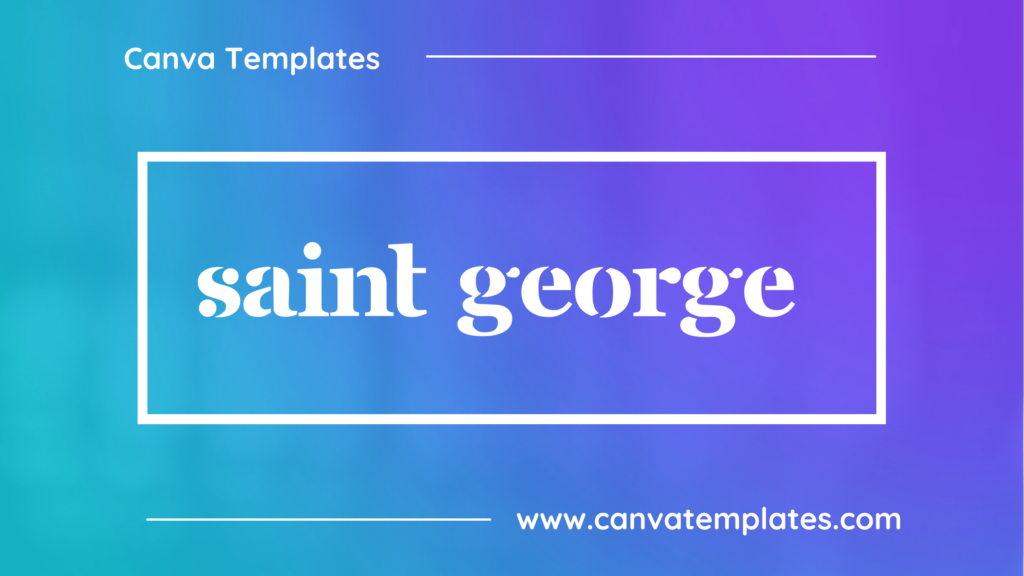
Saint George is a decorative font with medieval-inspired letterforms that give it a historical and regal appearance. This font is suitable for projects that require an old-world, stately feel, such as certificates, heraldry, or signage.
2. Celandine Outline
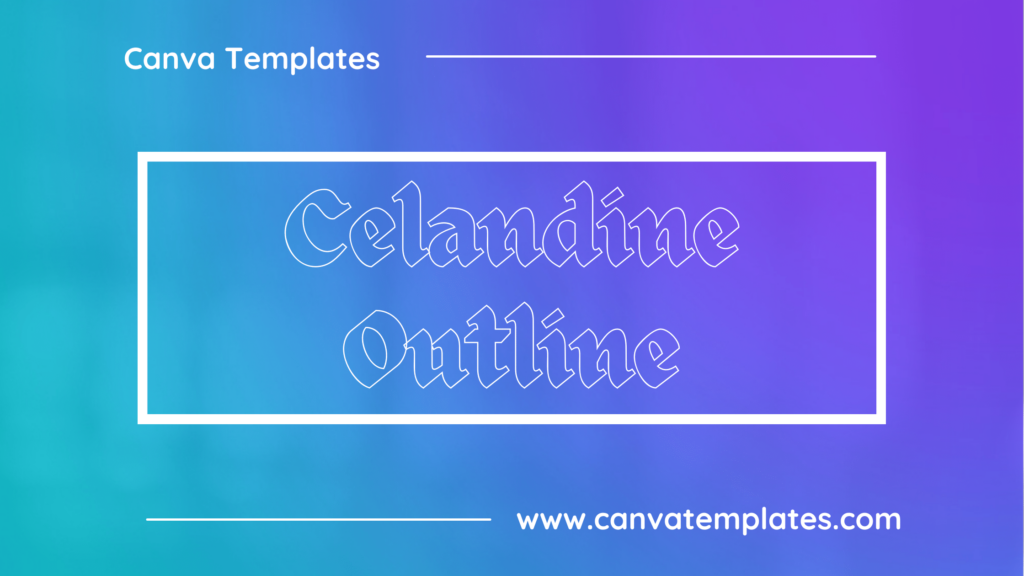
Celandine Outline is a delicate and elegant font featuring outlined letterforms with a touch of floral embellishment. This font is perfect for projects that need a sophisticated and graceful aesthetic, such as wedding invitations, labels, or logos.
3. Luckiest Guy
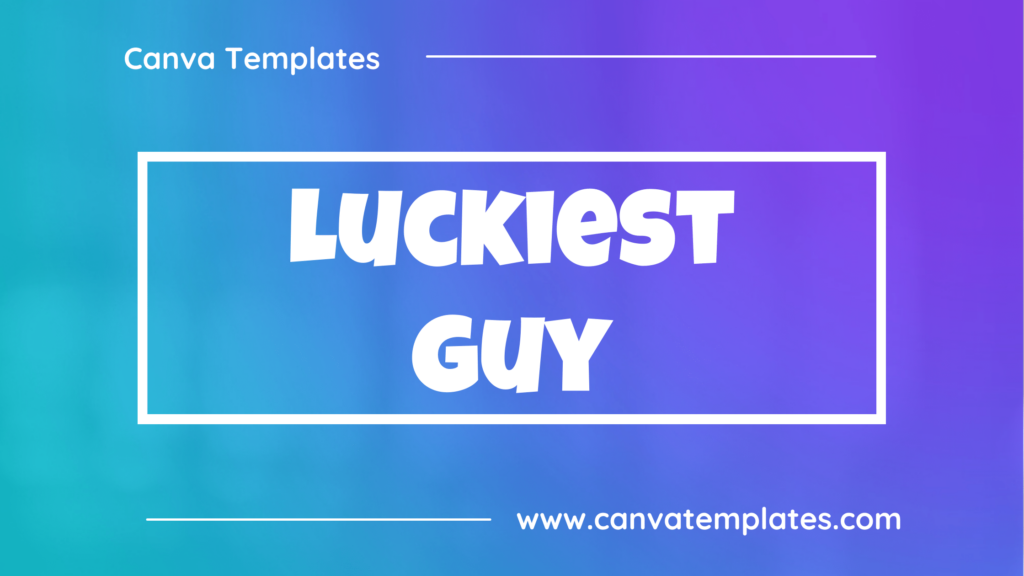
Luckiest Guy is a playful, comic-style font characterized by its bold and rounded letterforms. Its fun and approachable design make it a great choice for projects that need an energetic and lighthearted tone, such as logos, posters, or children’s materials.
4. Engravers Old English
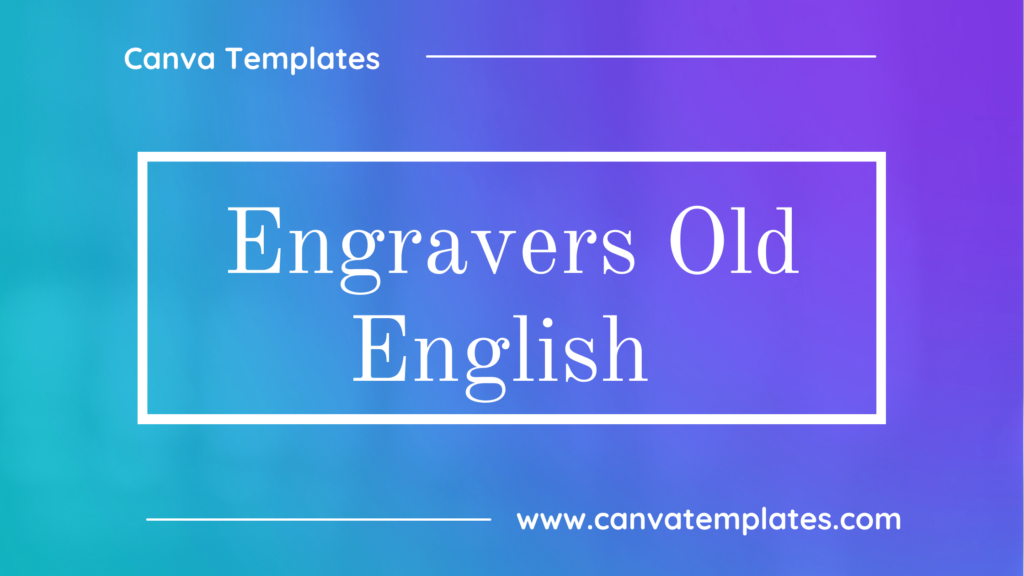
Engravers Old English is a classic, blackletter font that features ornate and intricate letterforms reminiscent of Gothic calligraphy. This font is ideal for projects that require a historical, regal, or medieval aesthetic, such as certificates, signage, or book covers.
5. IM Fell English SC
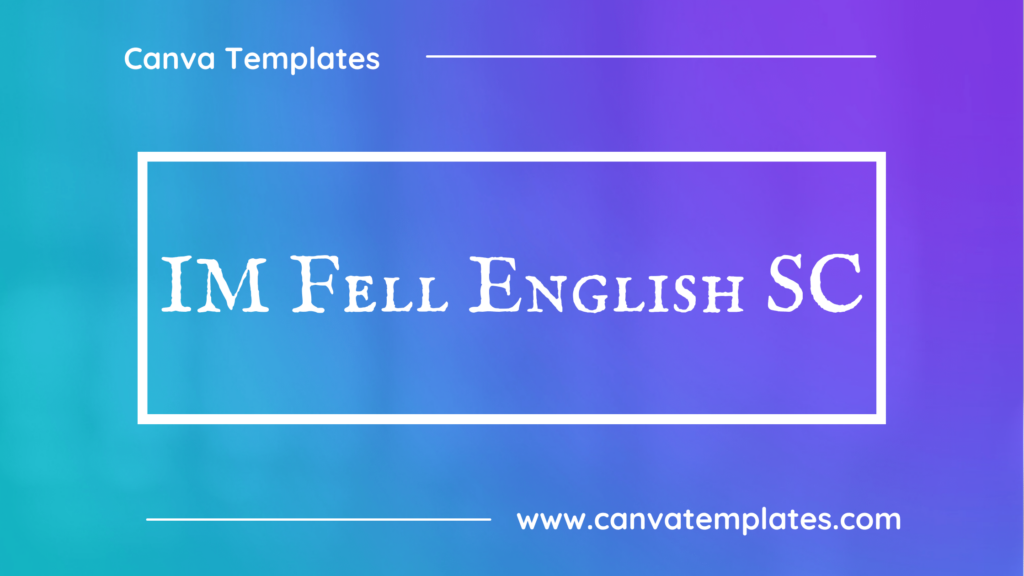
IM Fell English SC is a serif font inspired by the typesetting used in the works of English typographer and publisher John Fell. Its distinctive, slightly irregular letterforms evoke a sense of historical charm and make it an excellent choice for projects that require a classic, literary feel, such as book covers, historical documents, or academic publications.
6. Glassure
Glassure is a decorative display font with a unique design that resembles the texture of glass. The letters are made up of a series of small, interlocking shapes that create a mosaic-like effect. The font has a futuristic and elegant feel, making it ideal for use in designs that require a modern and sophisticated look.
7. Yatra One
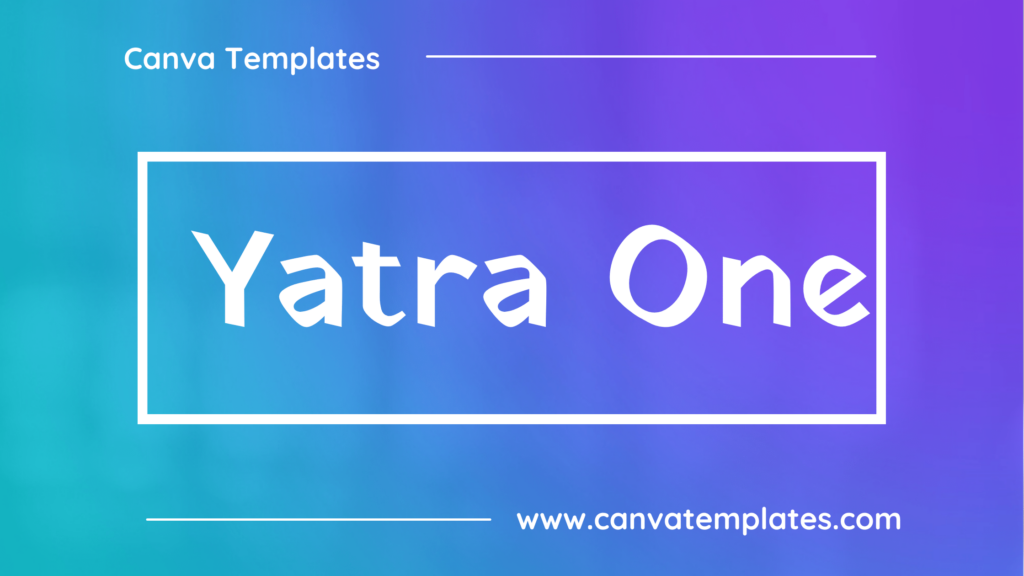
Yatra One is a decorative font with a unique, hand-drawn design that features bold and expressive letterforms. Its flowing and artistic appearance makes it an excellent choice for projects that require a distinctive and creative touch, such as posters, invitations, or branding for an artistic brand. Yatra One’s unique style adds an element of creativity and personality to any design project.
8. St Petrovica
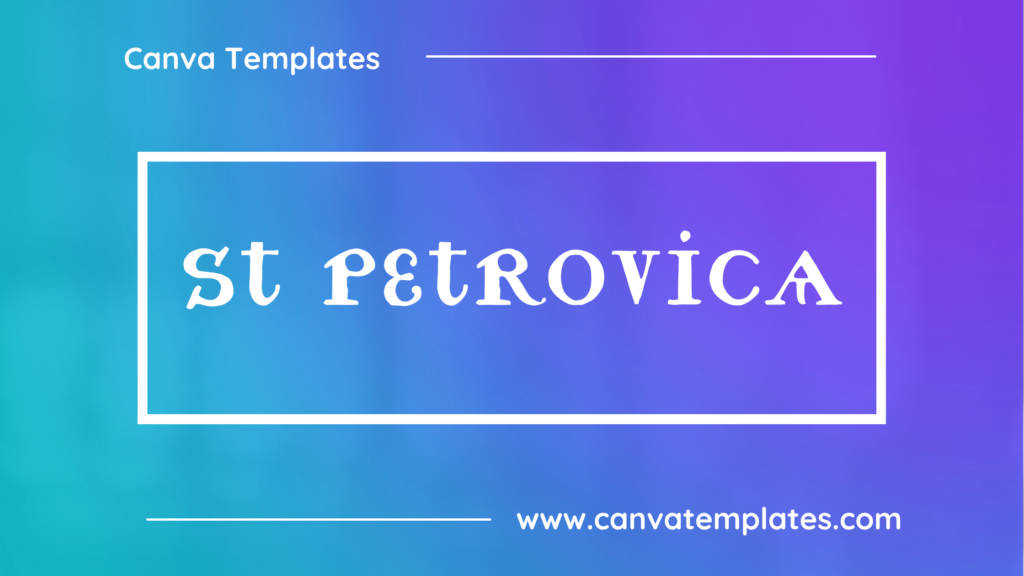
St Petrovica is a decorative font inspired by medieval calligraphy and illuminated manuscripts. Its ornate and stylized letterforms evoke a sense of tradition and craftsmanship, making it an excellent choice for projects that require a unique and artistic touch. St Petrovica is well-suited for use in book covers, branding for historical or cultural institutions, or any design project that aims to convey a sense of history and elegance.
9. Drukaatie Burti Bold
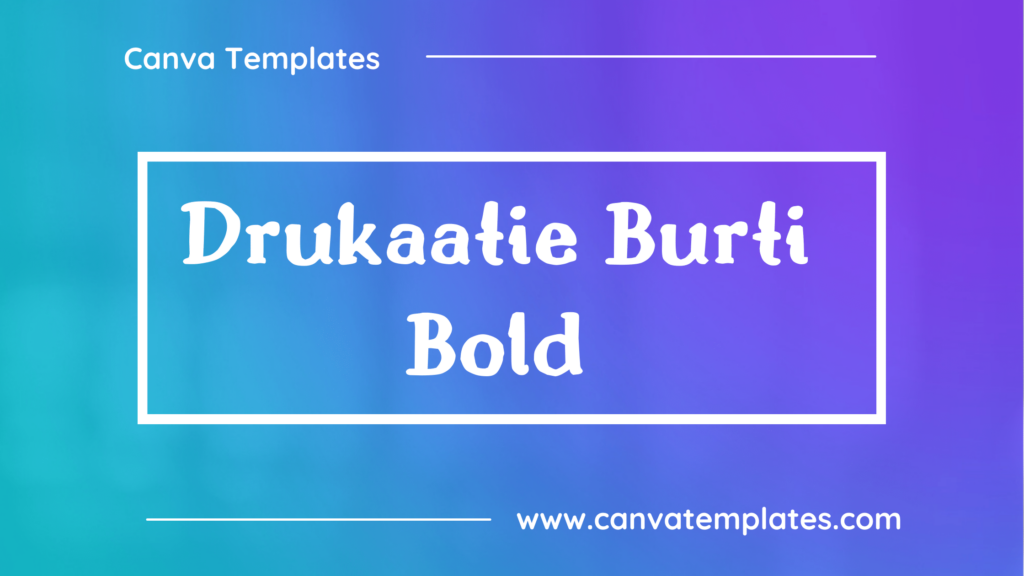
Drukaatie Burti Bold is a bold, eye-catching font featuring strong, thick strokes. This font is ideal for projects requiring a powerful and impactful aesthetic, such as headlines, posters, or signage.
10. Agnets
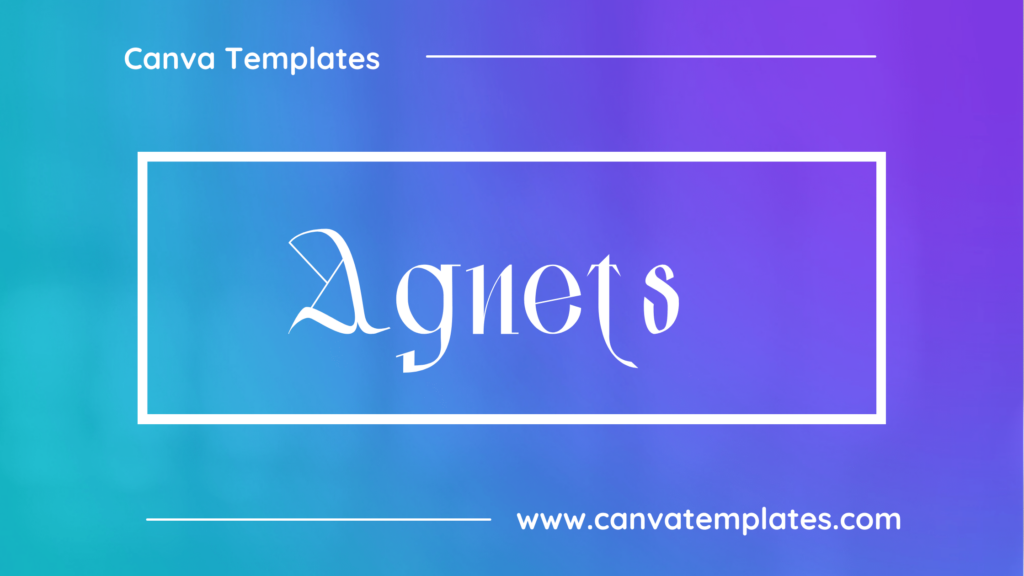
Agnets is a modern and elegant sans-serif font with a minimalist and clean design. Its simple and balanced letterforms make it an excellent choice for a wide range of projects, from branding and logo design to user interfaces and web design. Agnets’s clear and readable style gives a professional and polished look to any design project where a contemporary and sophisticated look is desired.
Conclusion